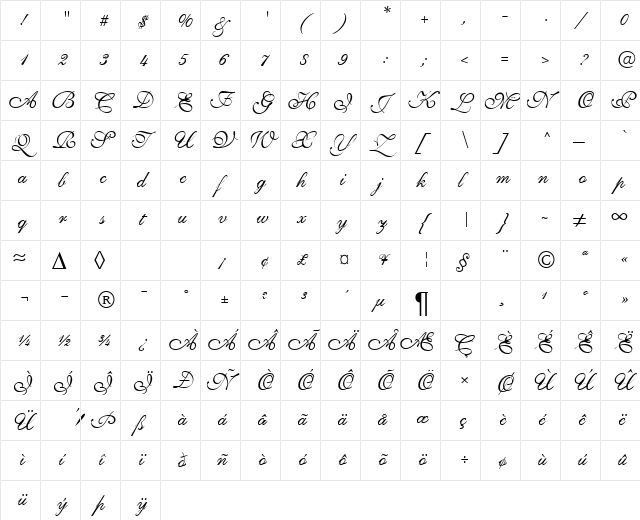
ShirleyVolante Regular
Design Context for ShirleyVolante Typeface
ShirleyVolante is a composed and adaptable typeface that performs quietly and consistently across a wide range of design contexts.